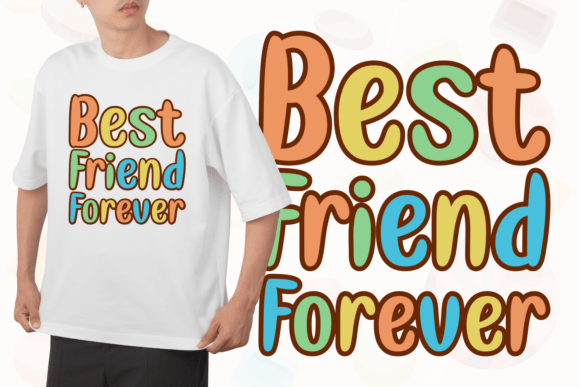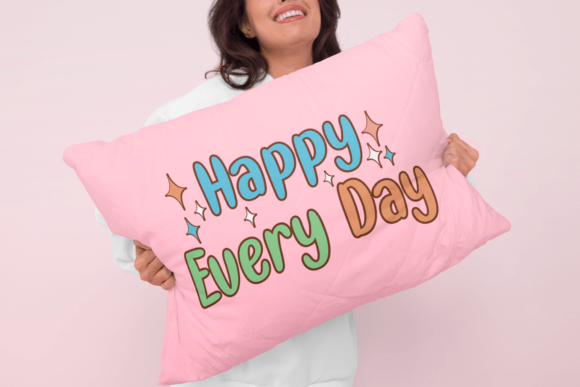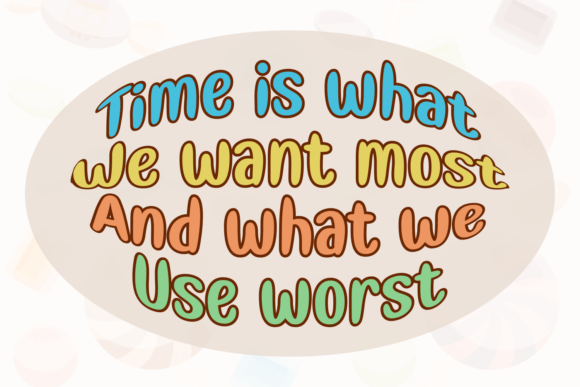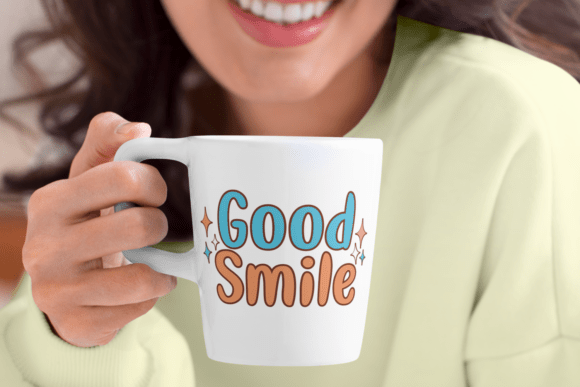
The Sweet Spot: Discovering the Better Candy Font
I’ll never forget the design project that led me to the Better Candy font. I was working on a fun, retro-themed t-shirt design for a client who wanted something that screamed ’80s chic. As I scrolled through font after font, nothing seemed quite right – until I stumbled upon Better Candy. Its bold, playful letters danced across my screen, exuding a groovy charm that instantly captured the essence of the era. I knew right then and there that I had found the perfect fit.
So, what makes Better Candy so special? Let’s dive into the details.
- ✨ Smooth Finish: The font’s smooth finish gives it a polished look that’s perfect for everything from trendy t-shirts to stylish posters.
- ✅ Unique Design: Better Candy’s unique design sets it apart from other fonts, making it an excellent choice for designers looking to add a touch of personality to their work.
- 💃 Retro-Chic Appeal: This font is a love letter to the ’80s, with a modern twist that makes it perfect for current design trends.
- 🎉 Versatility: Better Candy effortlessly transforms from a casual font into something extra cute, making it ideal for a wide range of design projects.
While Better Candy is an amazing font, there are a few things to keep in mind:
- 🤔 Limited Use in Small Sizes: Due to its bold design, Better Candy may not be the best choice for very small font sizes or detailed work.
- ⚠️ Glyph Limitations: As with any font, there may be limitations to the glyphs and special characters available, so be sure to check the font’s capabilities before committing to a project.
While the true origins of Better Candy might be shrouded in mystery, it’s clear that its designer was inspired by the vibrant, playful aesthetic of the ’80s. With its bold lines, smooth finish, and unique design, Better Candy embodies the spirit of a bygone era, while still feeling fresh and modern.
| Font Name | Better Candy Font |
| Author | Hendrik (7NTypes) |
Q: What makes Better Candy so versatile?
A: Better Candy’s versatility comes from its unique blend of retro charm and modern appeal, making it suitable for a wide range of design projects.
Q: Is Better Candy difficult to read?
A: While Better Candy is a bold font, it’s still relatively easy to read, especially in larger sizes or for headlines.
Q: Can I use Better Candy for embroidered crafts?
A: Absolutely! Better Candy’s smooth finish and playful design make it an excellent choice for embroidered crafts and other handmade projects.